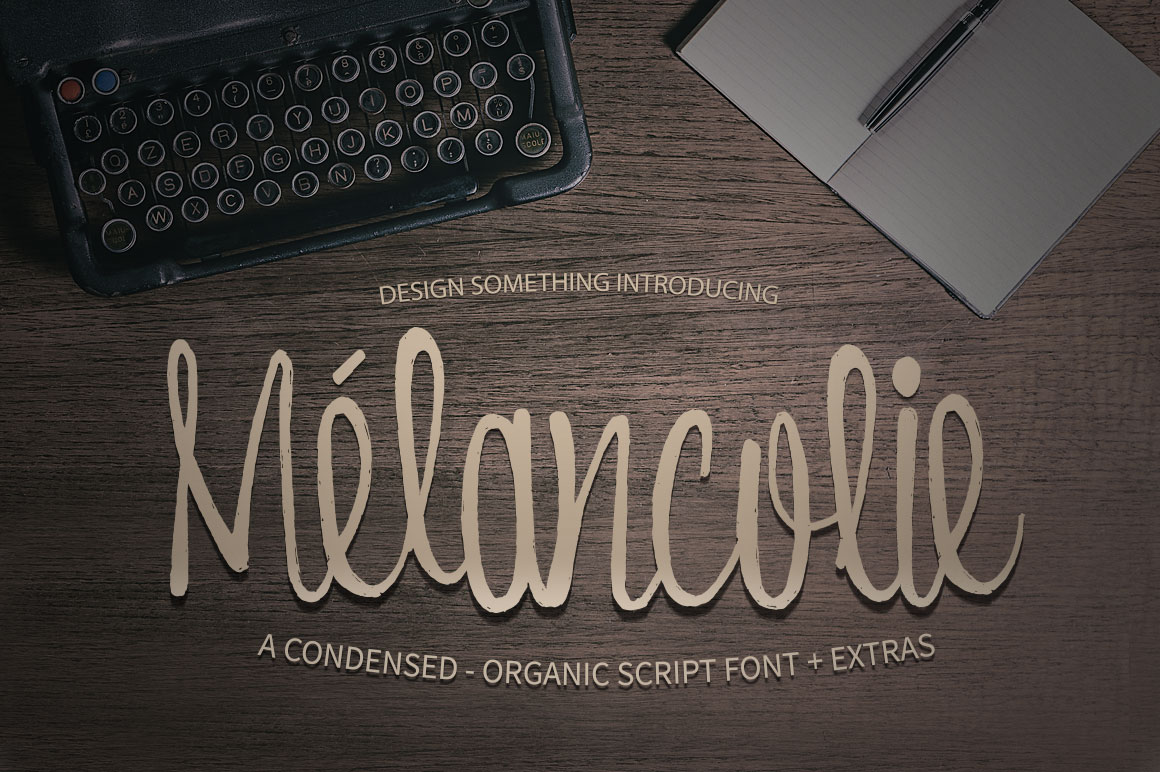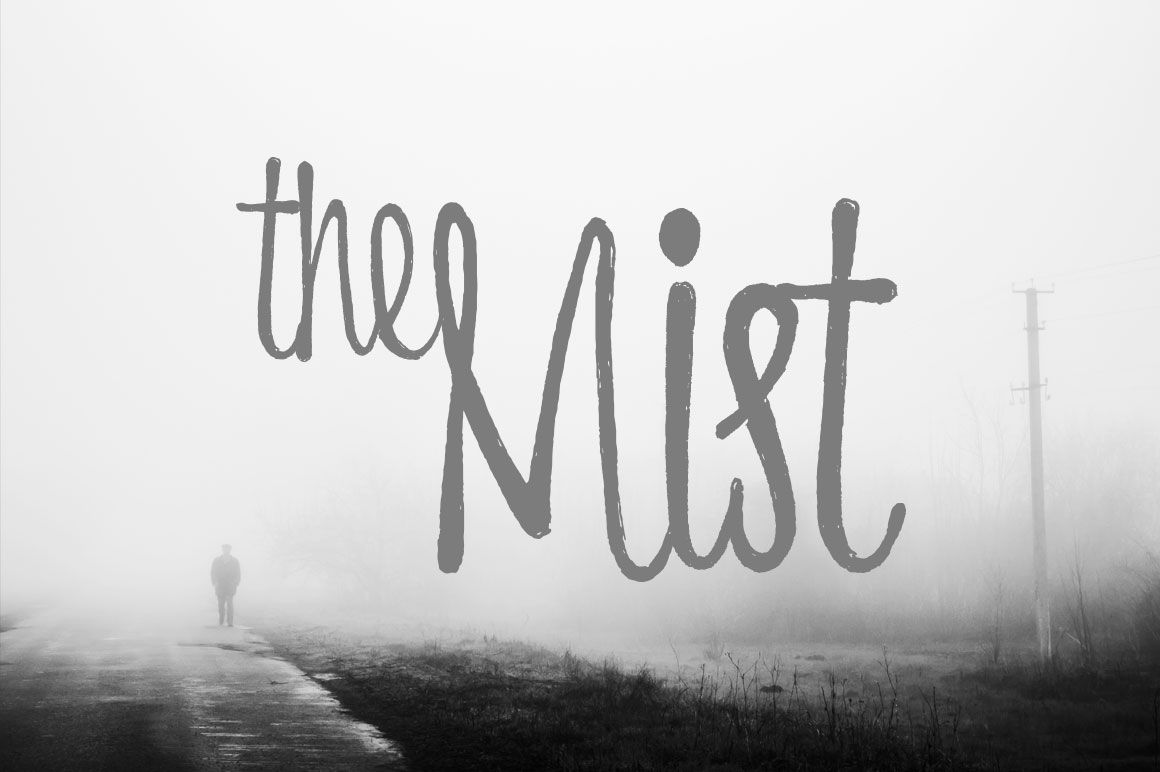
Melancolie Font
Melancolie is a organic condensed script font.
The Melancolie font blends perfect with many types of backgrounds and effects due to it’s ‘perfectly imperfect’ edges. This ensures that the Melancolie font is suitable for many purposes.